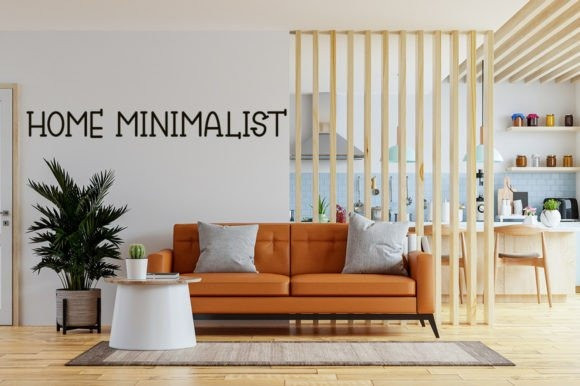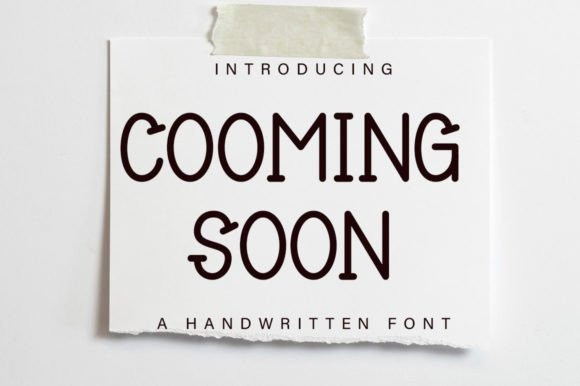
Cooming Soon Font
Cooming Soon Cute Font is a minimalist and neat handwritten font. It can easily be matched to an incredibly large set of projects, so add it to your creative ideas and notice how it makes them stand out!